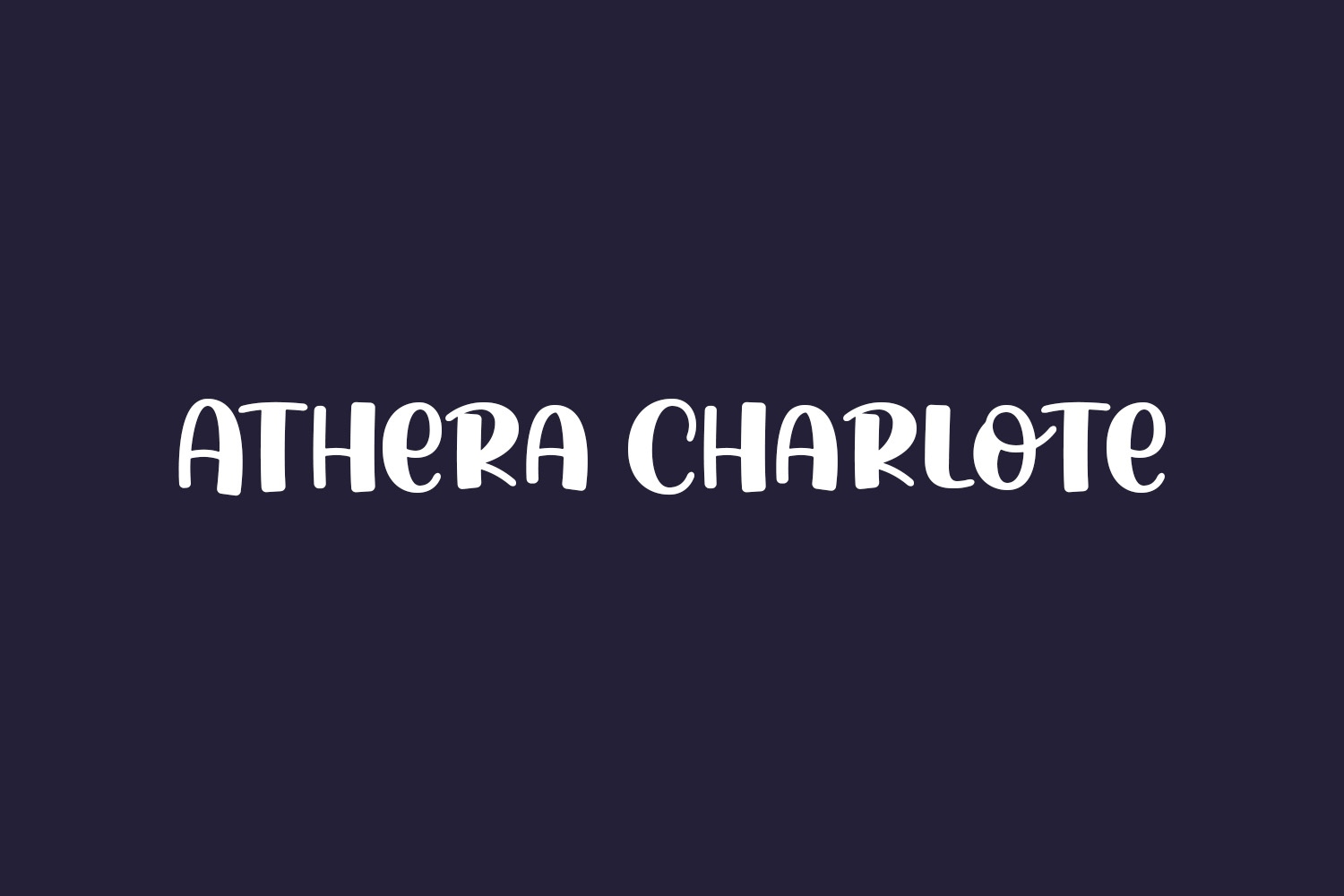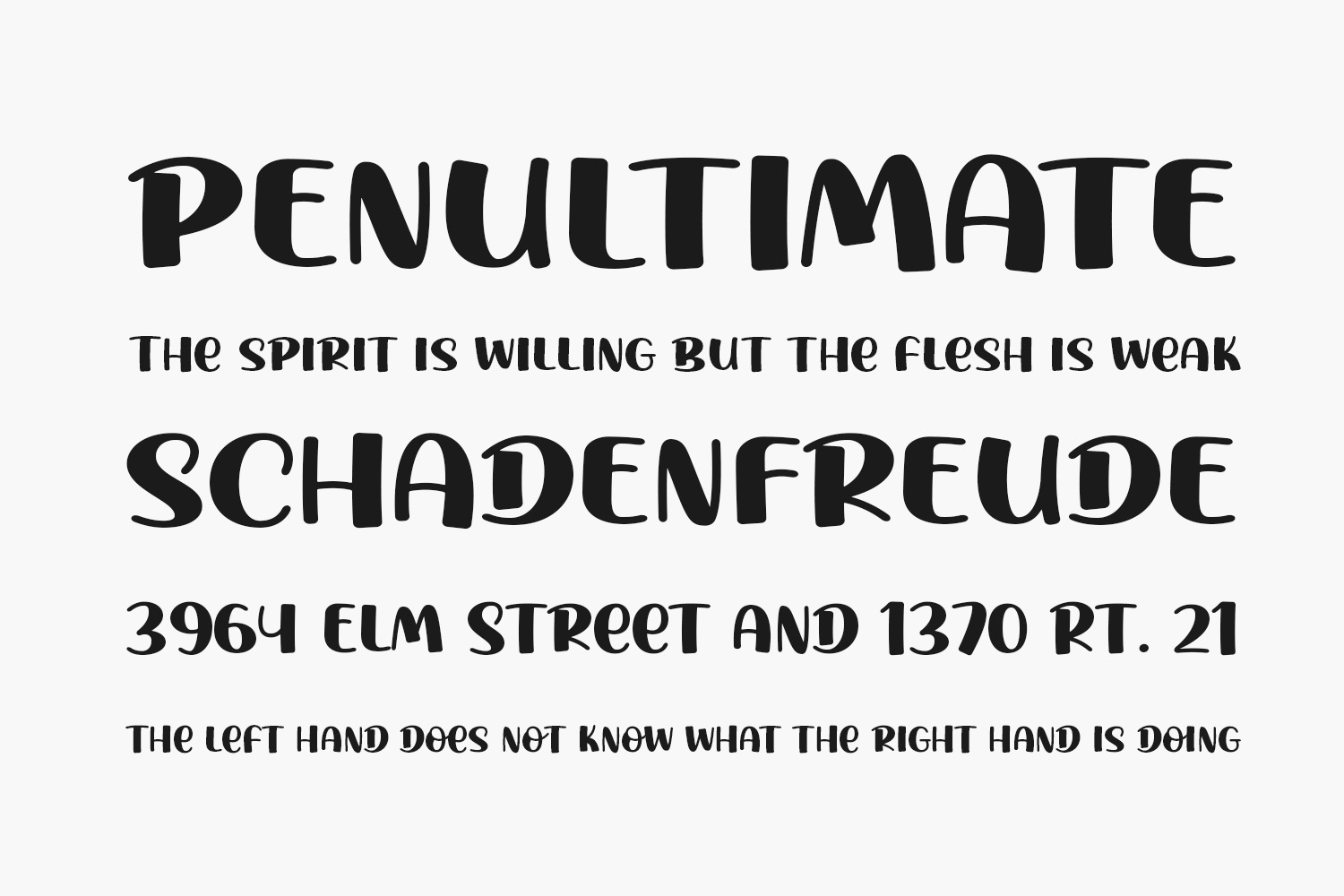
Athera Charlote Free Font is a cool, unique and interestingly designed display font. This font is imposing and features uniquely shaped letters, and as a result, it will easily match a wide range of creations that require a distinct touch. Athera Charlote Free Font was designed by Zarma Type Foundry and is free for personal use only. Please purchase the full version for commercial use.